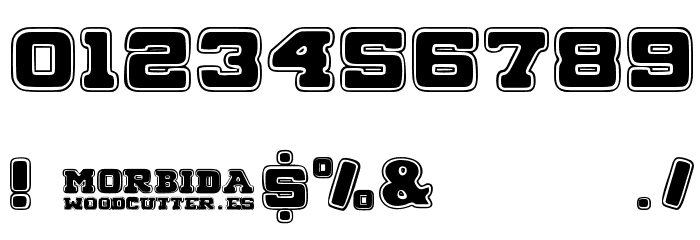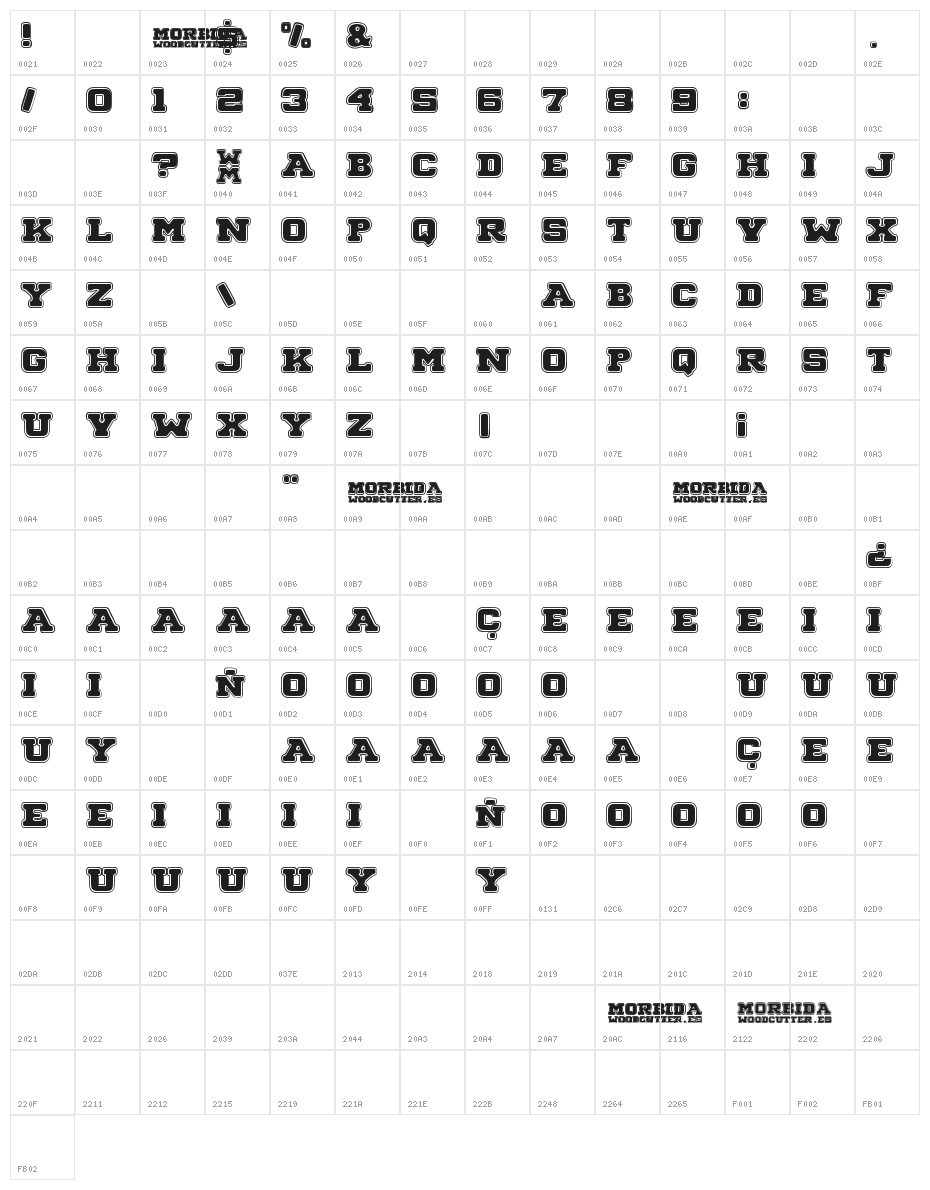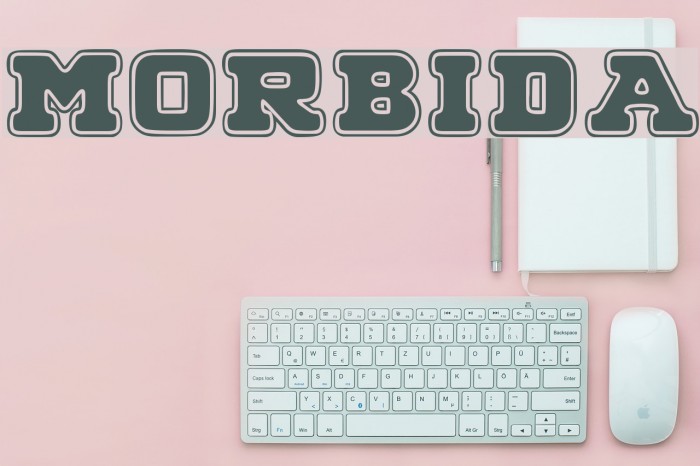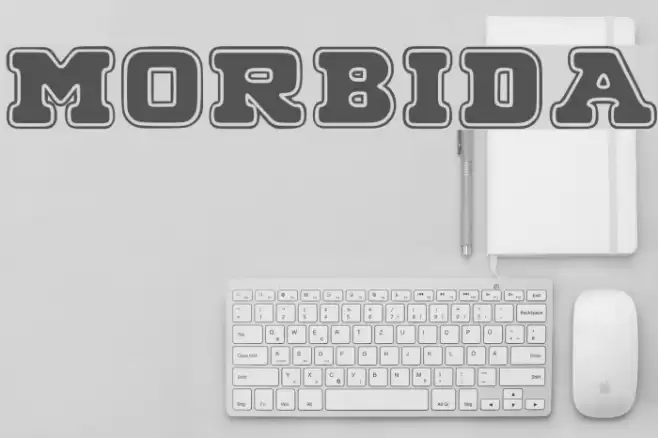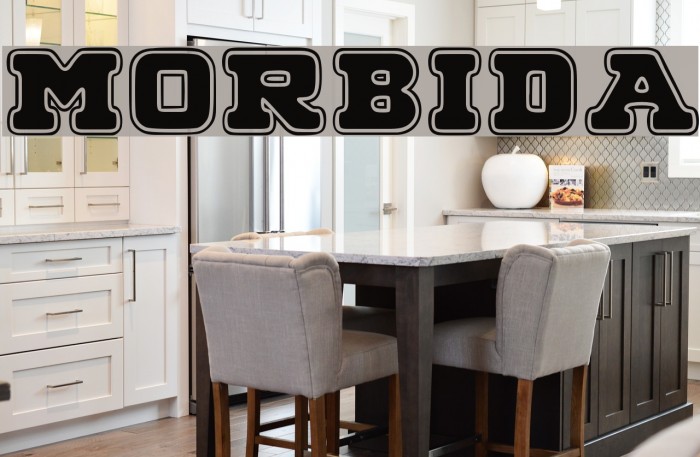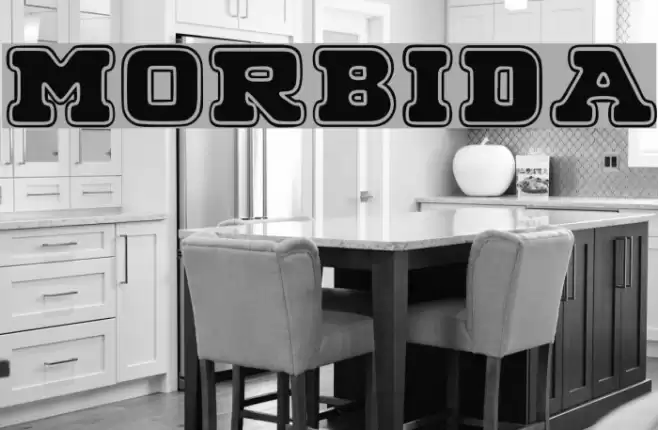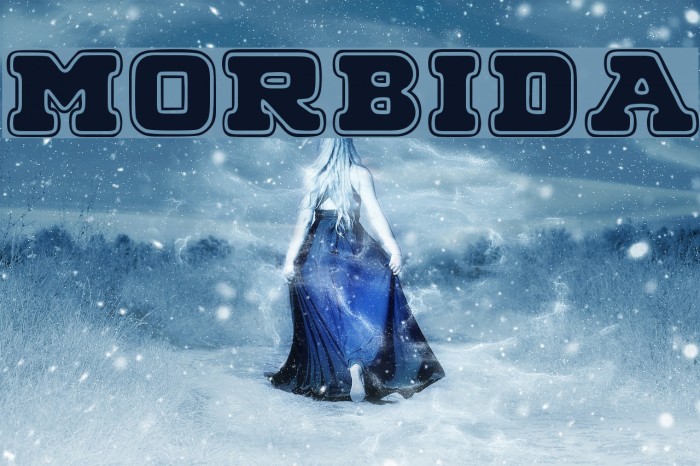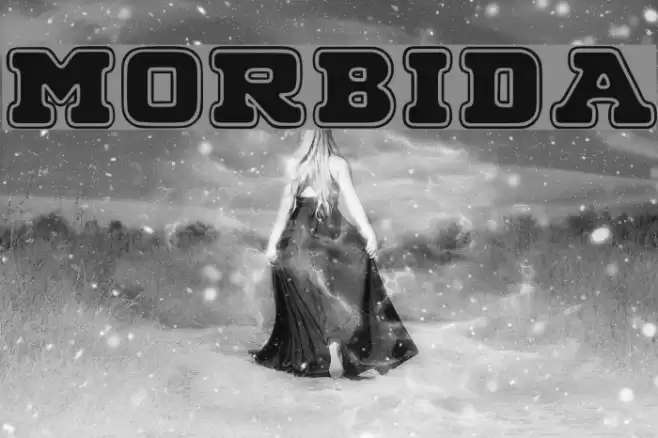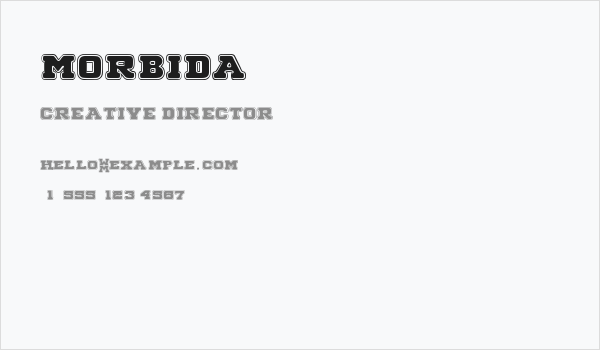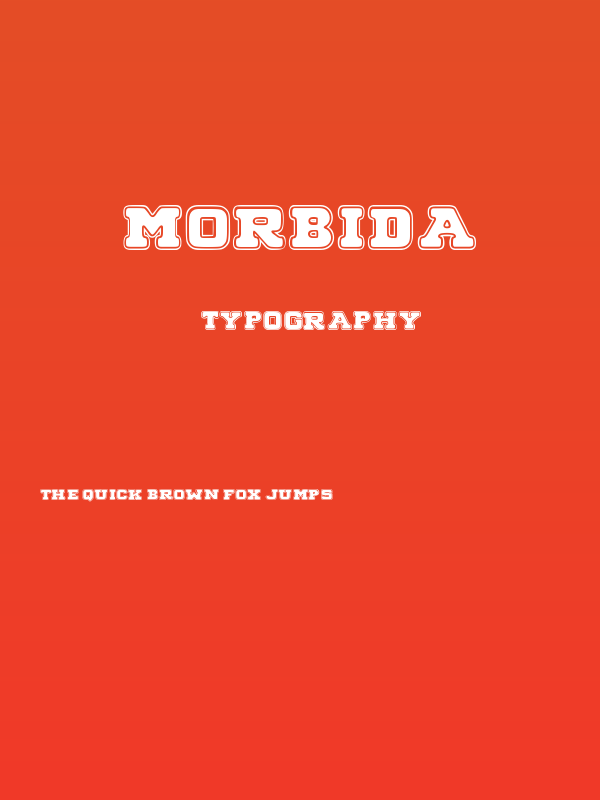
MORBIDA Font
MORBIDA Description
This font features a bold, decorative style with a strong, impactful presence. The characters are outlined, creating a shadow effect that adds depth and dimension. The uppercase letters are uniform in height, with a consistent width that gives a balanced appearance. The numbers and special characters maintain the same bold outline, ensuring cohesion across all elements. This font's design is reminiscent of vintage signage, making it ideal for projects that require a standout, eye-catching typeface.